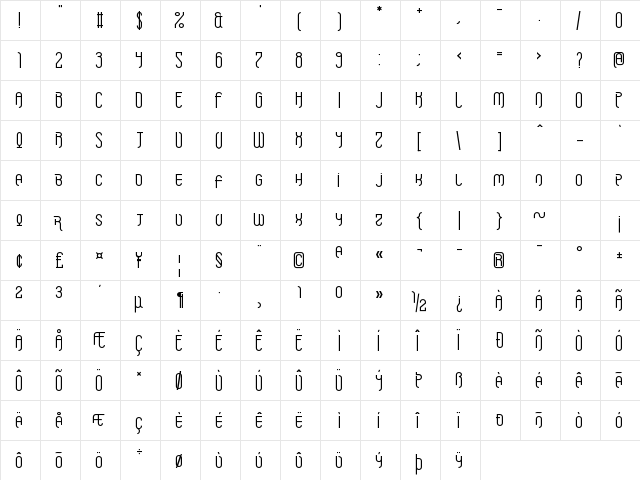
Griefmachine Regular
Design Context for Griefmachine Typeface
Griefmachine offers clean, dependable letterforms without strong stylistic allegiance, making it a practical choice for designers who need flexibility.
Pro Tip: Pair Griefmachine with a font of contrasting weight or personality to build a more expressive typographic hierarchy.